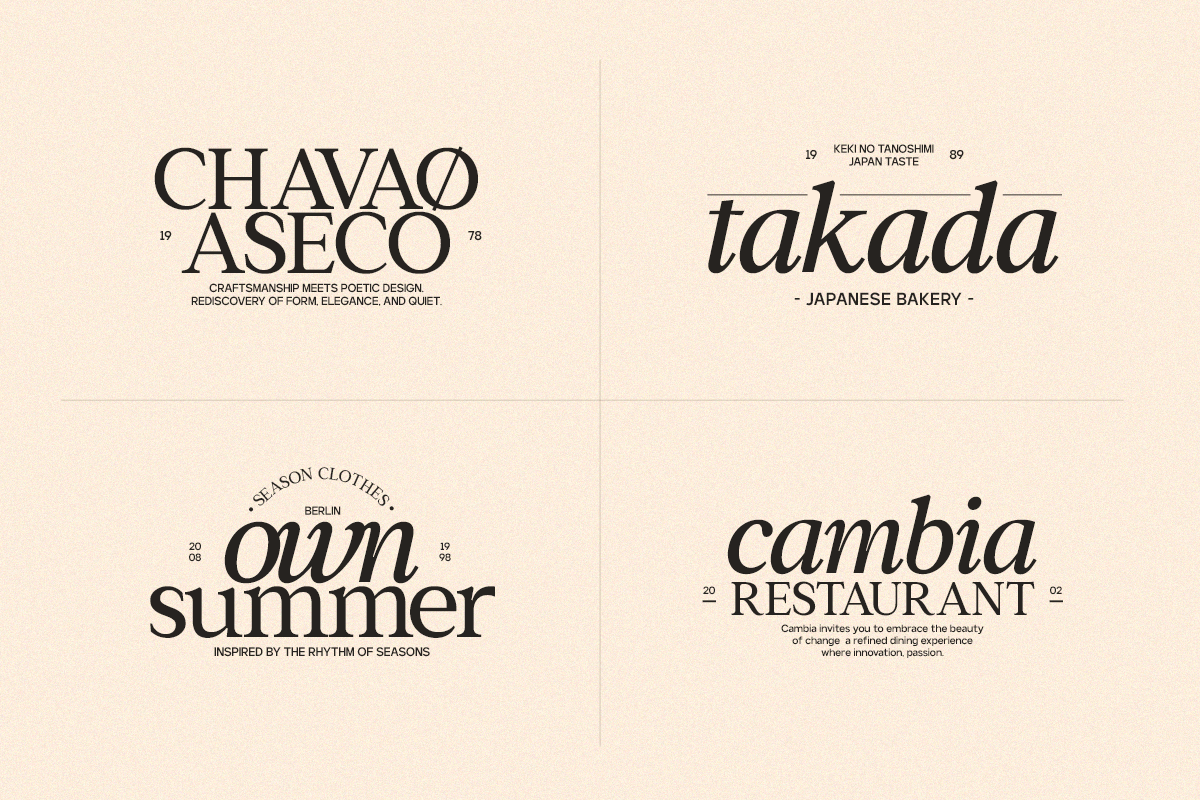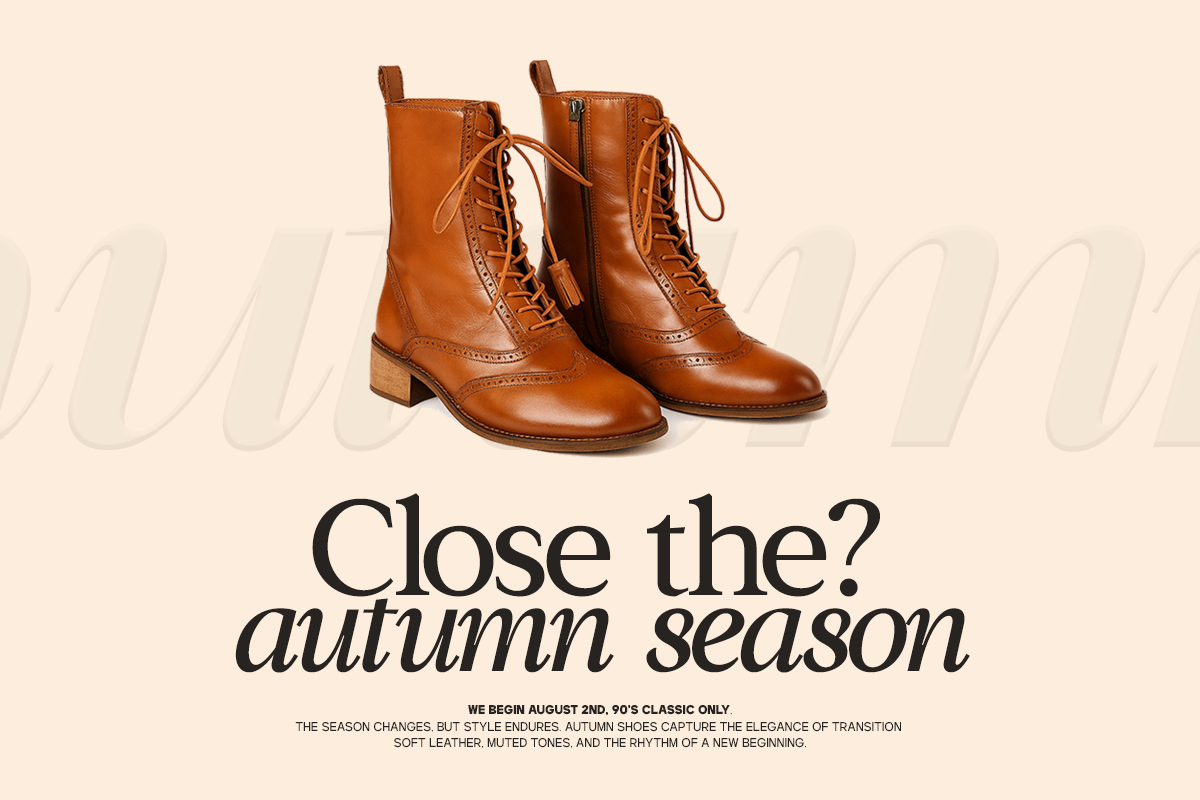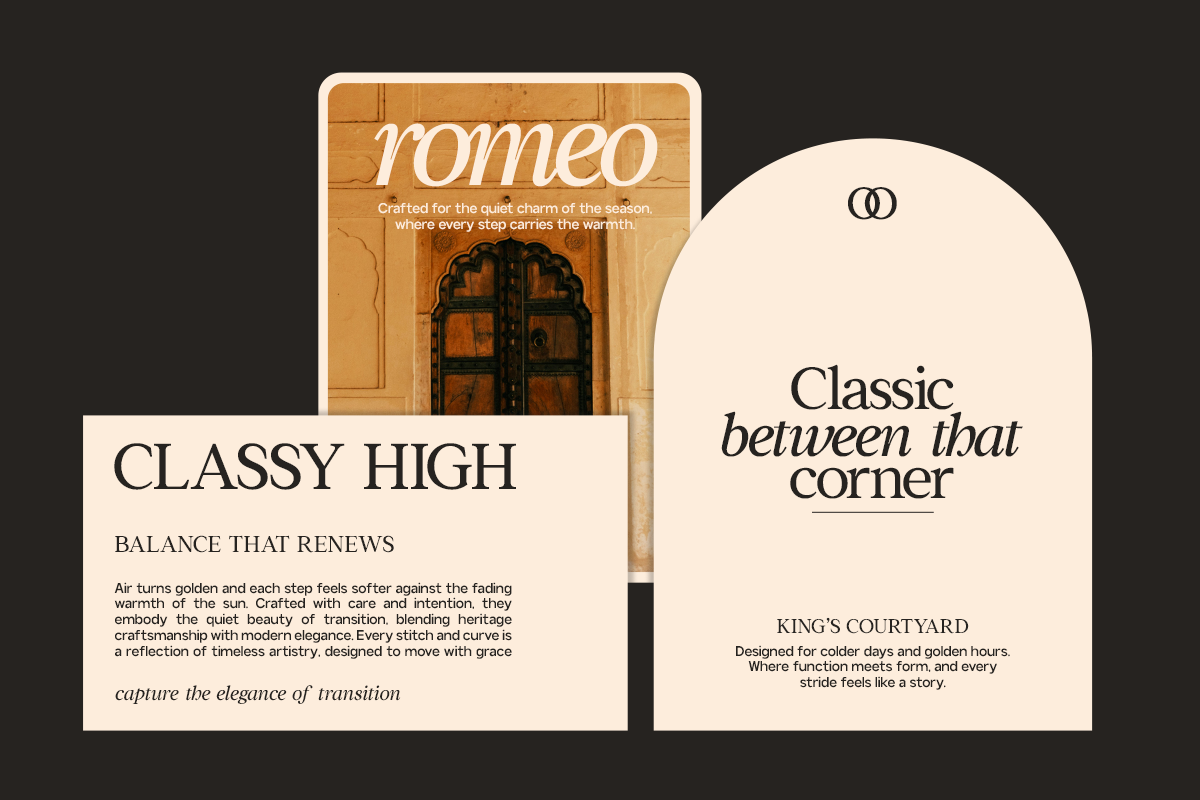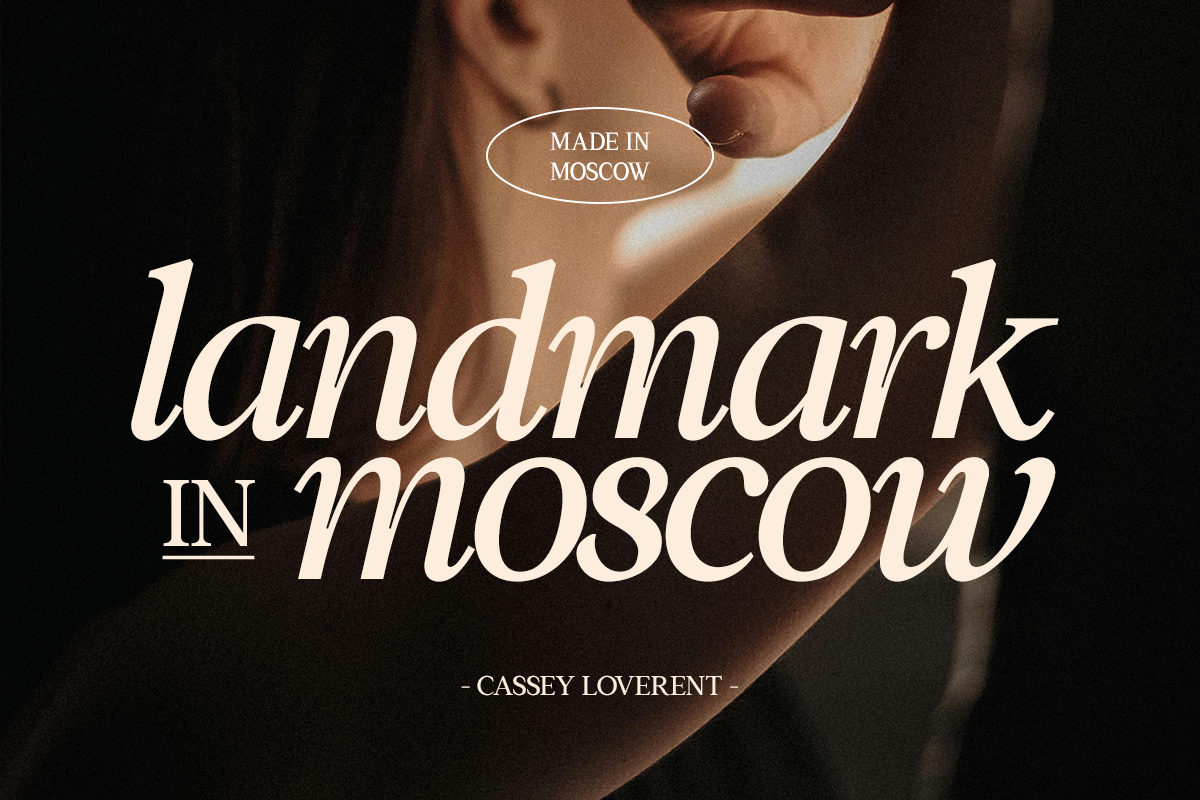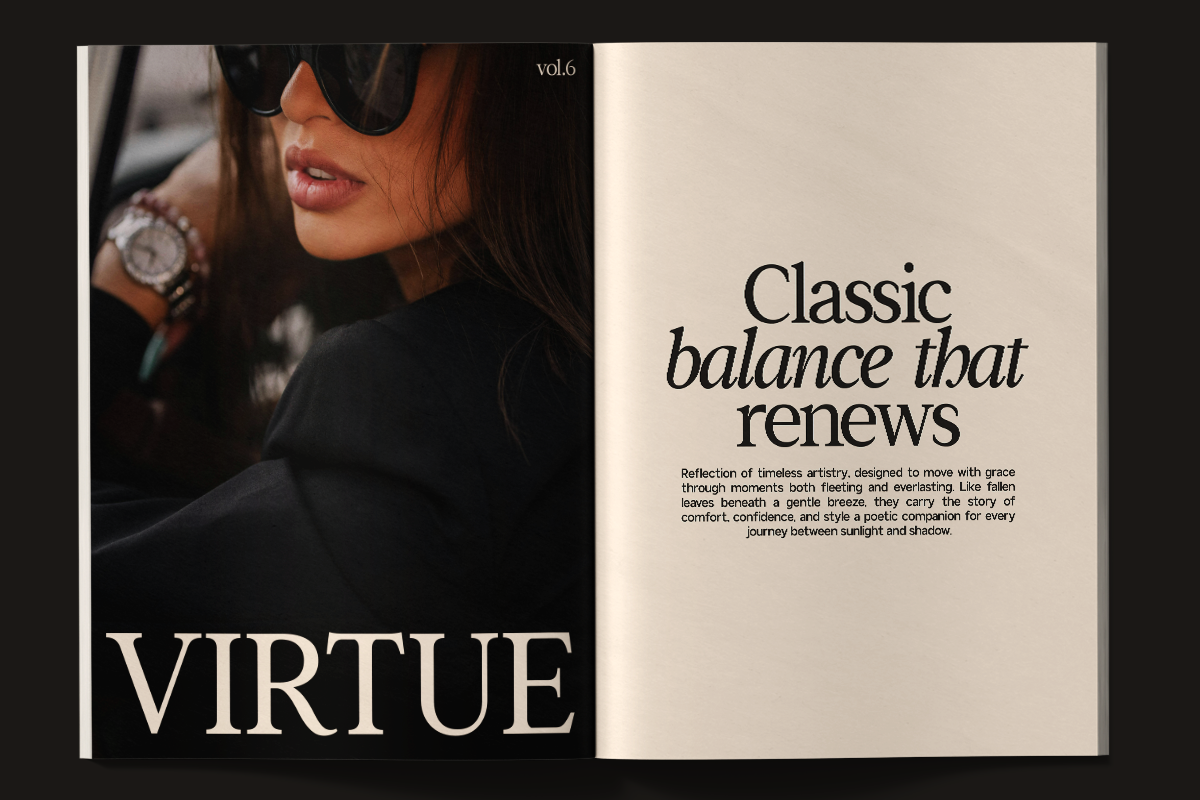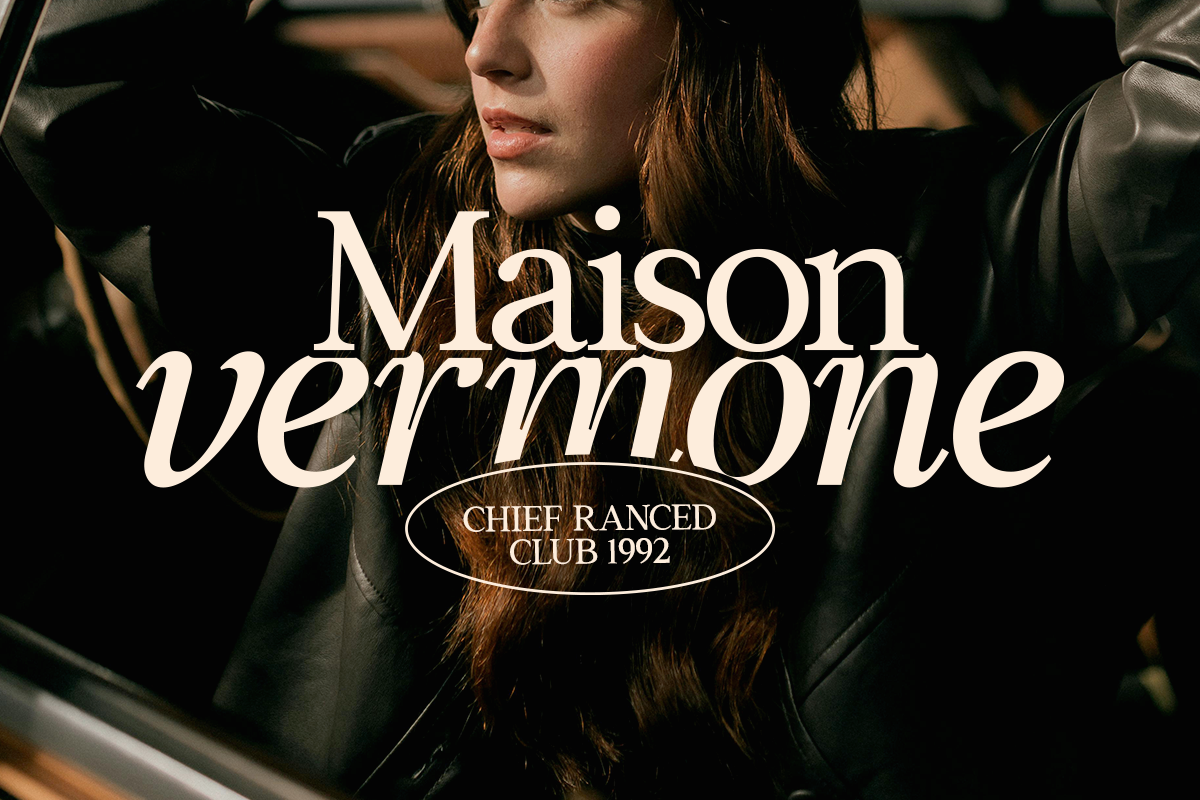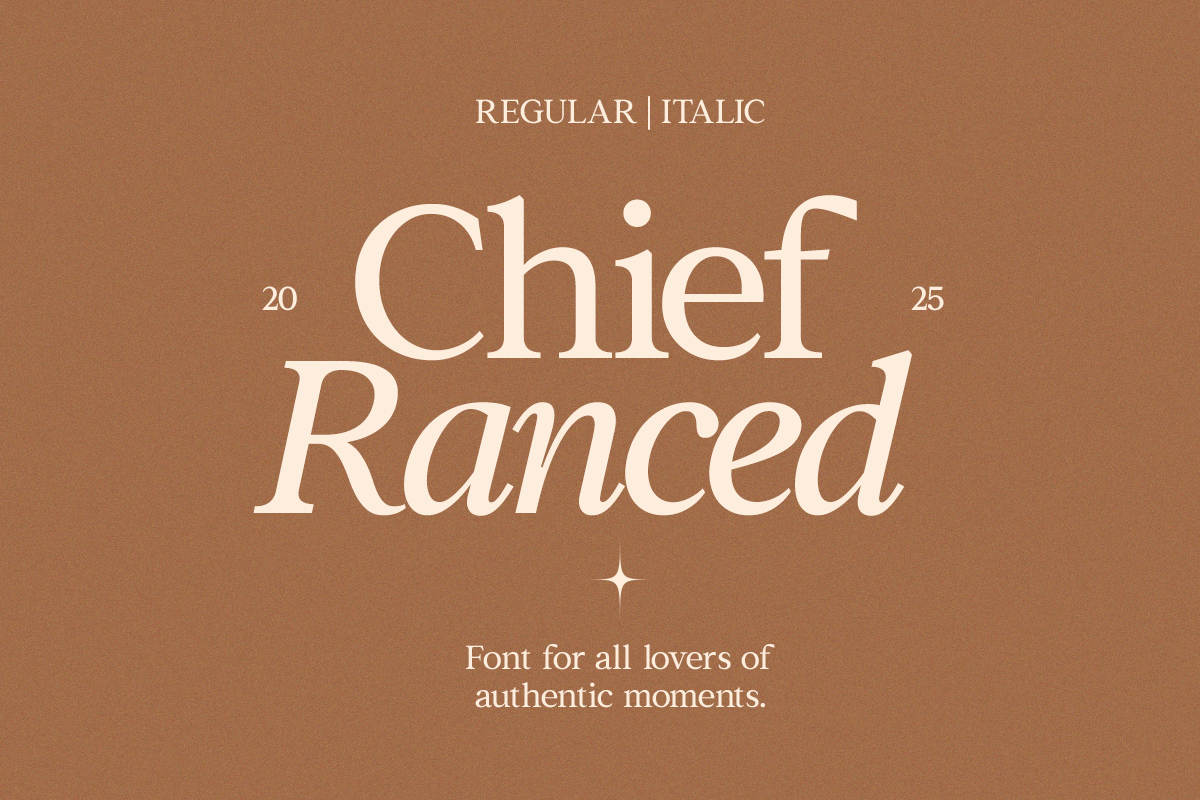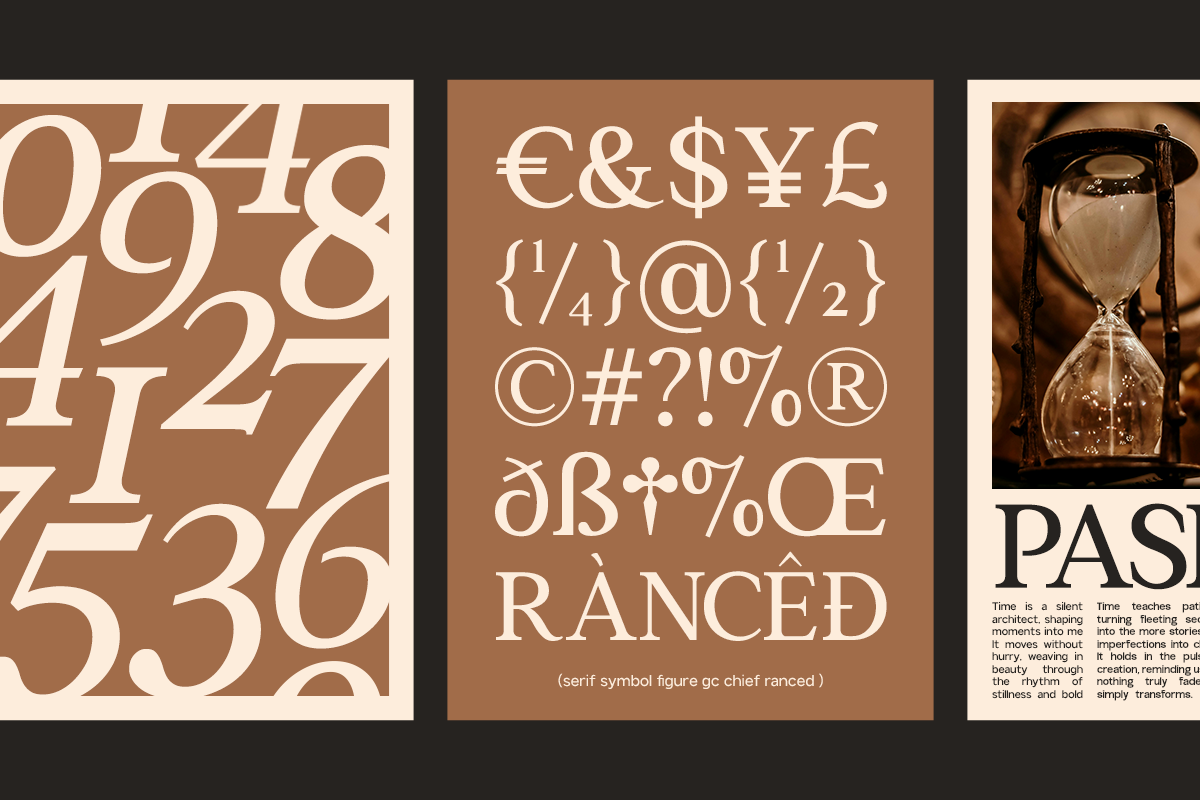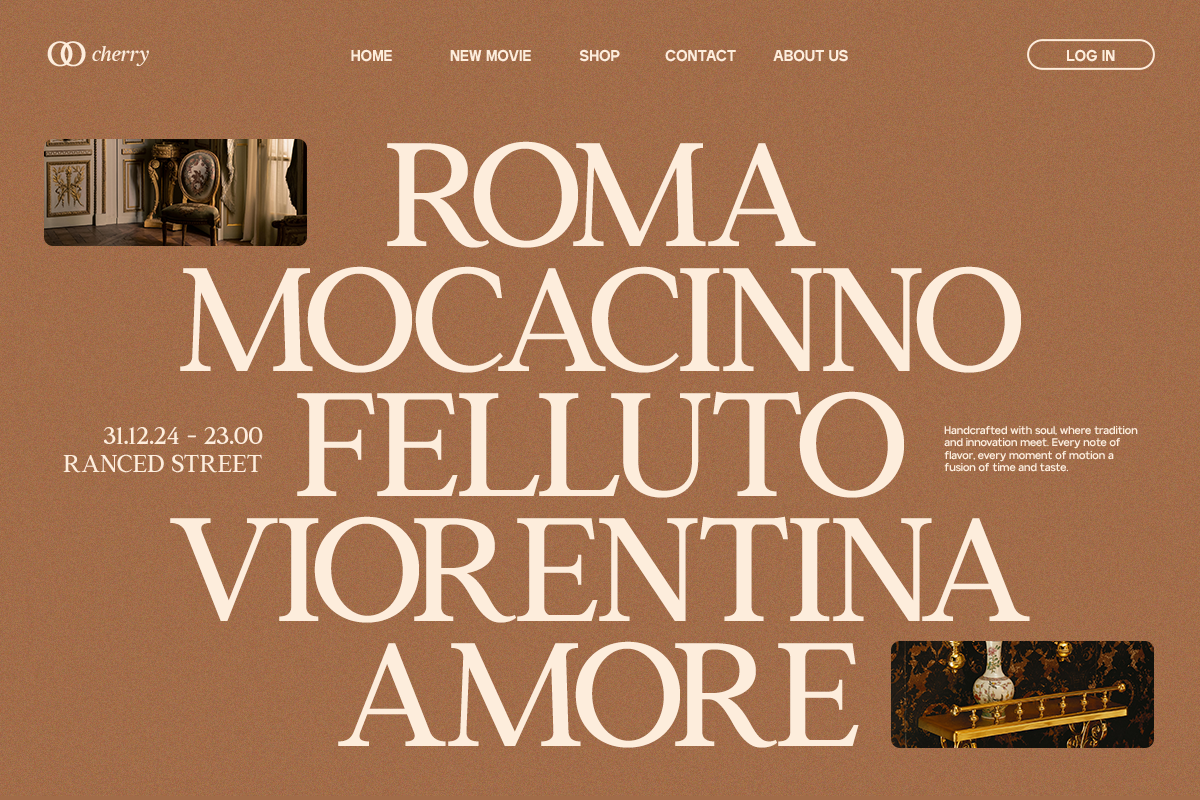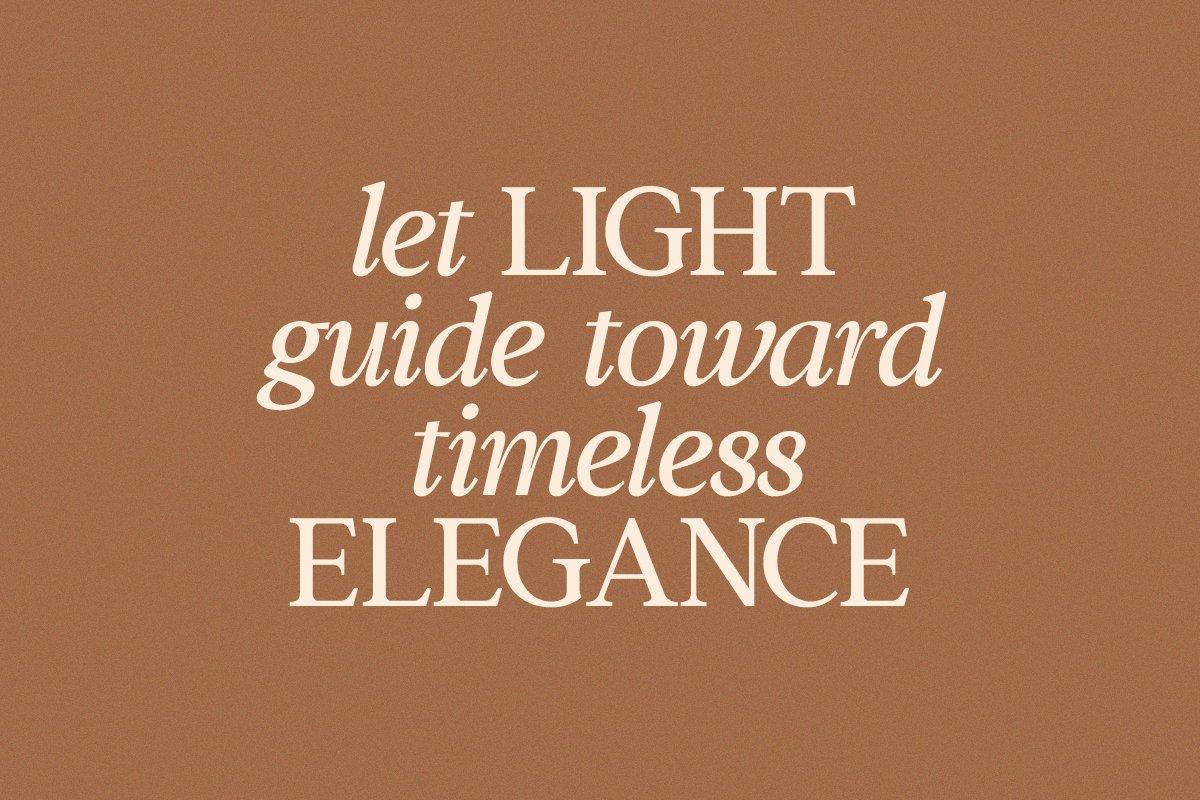
GC Chief Ranced – Serif Elegant Font
GC Chief Ranced – Serif Elegant Font by Glyphonic is a refined serif typeface crafted to embody elegance, sophistication, and timeless beauty within modern design contexts. Built on graceful proportions and delicate yet confident letterforms, Chief Ranced delivers a distinctive voice that feels both classic and contemporary.
Designed as a versatile serif family, GC Chief Ranced transitions effortlessly from subtle editorial text to expressive headline statements. Its balanced contrast, smooth curves, and carefully shaped serifs create a harmonious rhythm that enhances readability while maintaining a luxurious presence.
With a perfect blend of tradition and modern refinement, GC Chief Ranced is ideal for fashion branding, wedding designs, editorial layouts, luxury packaging, high-end visual identities, and artistic compositions. Whether used in Regular or Italic styles, it offers a sophisticated typographic foundation that elevates every design with warmth and character.
Features:
- Uppercase & Lowercase
- Numbers & Punctuation
- Regular & Italic Styles
- Elegant Serif Construction
- Multilingual Support
Bring timeless elegance, refined detail, and expressive sophistication into your design with GC Chief Ranced – Serif Elegant Font.